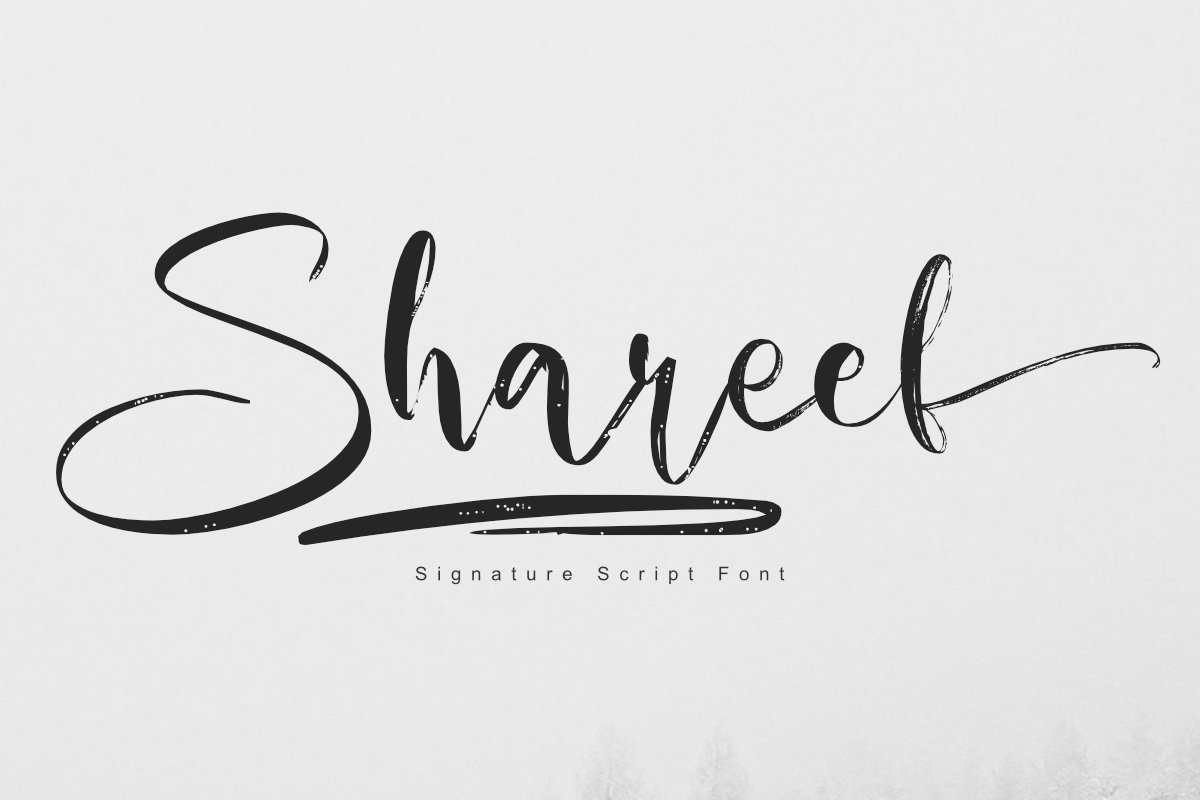
Shareef - Script Font
Introducing Shareef, a stylish signature script font. Suitable for logo and branding design, Its organic and flowing curves lend an air of sophistication, while its subtle texture gives it a handmade aesthetic that can add elegance and personality to your designs.
- Basic Latin Uppercase and Lowercase
- Numbers, symbols, and punctuations
- Under Swashes, alternate letters, & ligatures
- Multilingual Support.